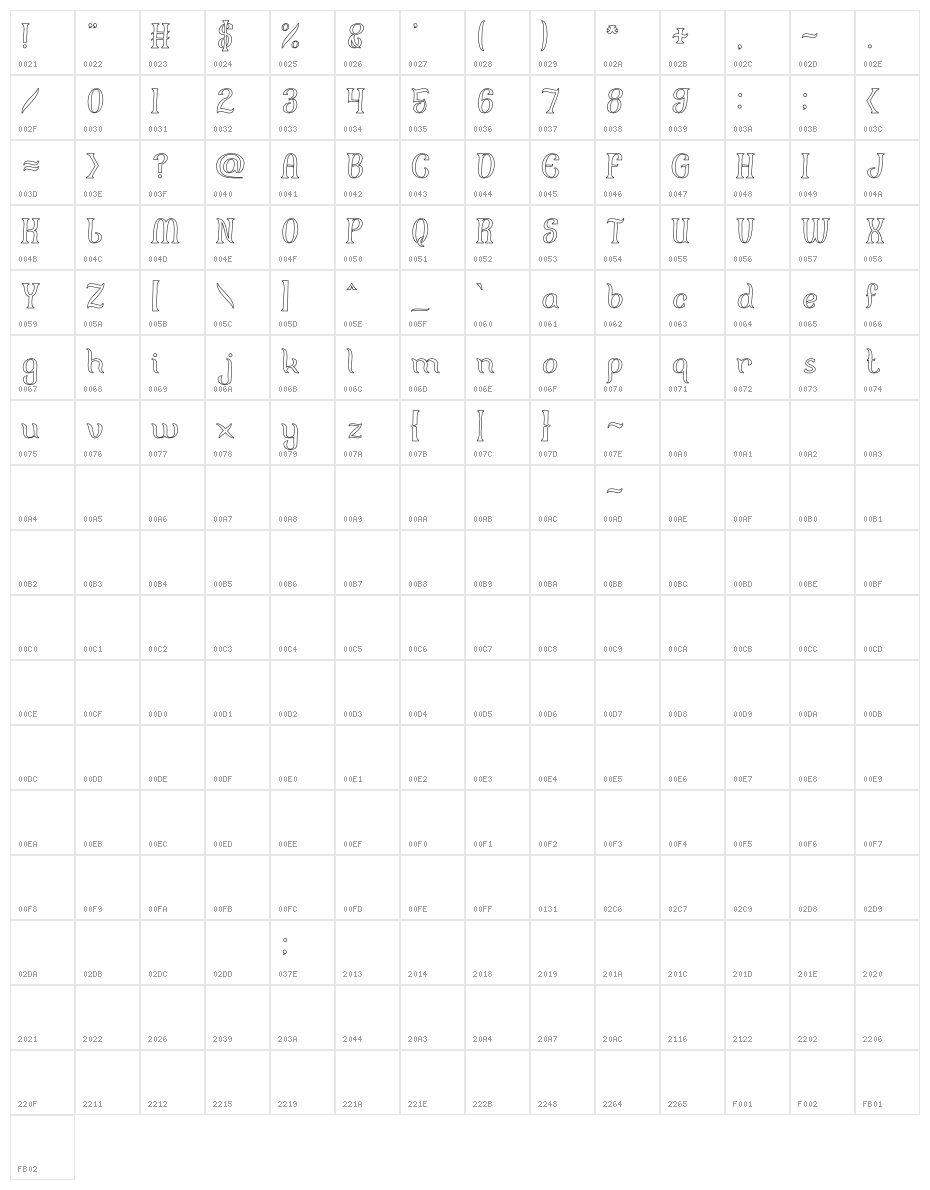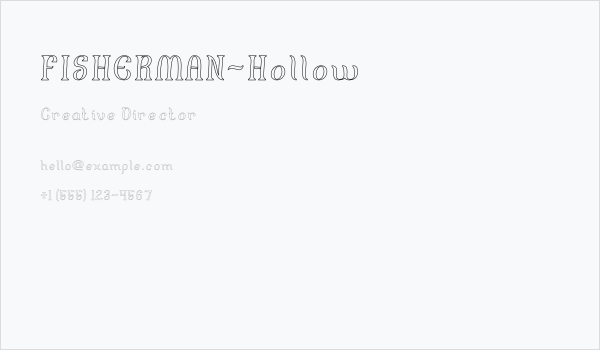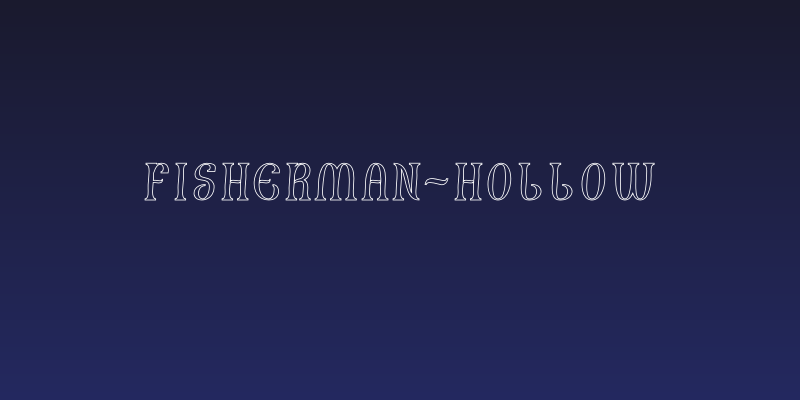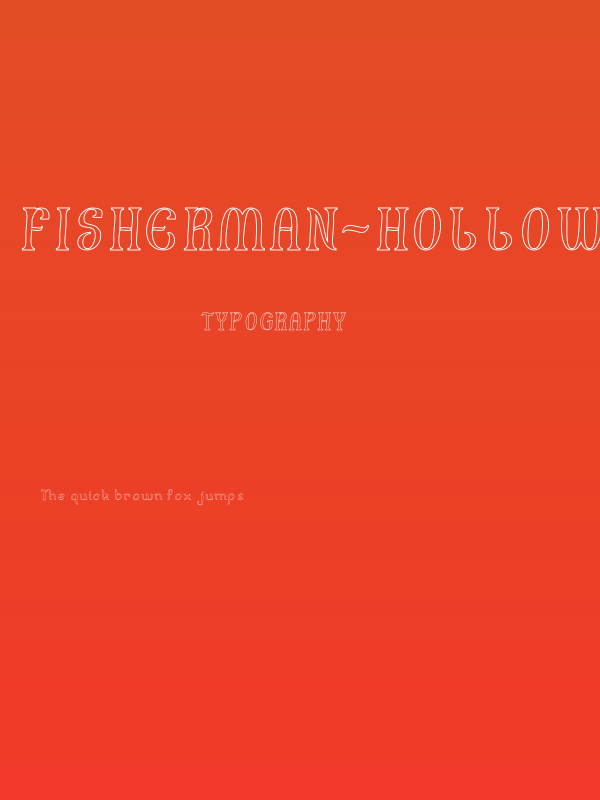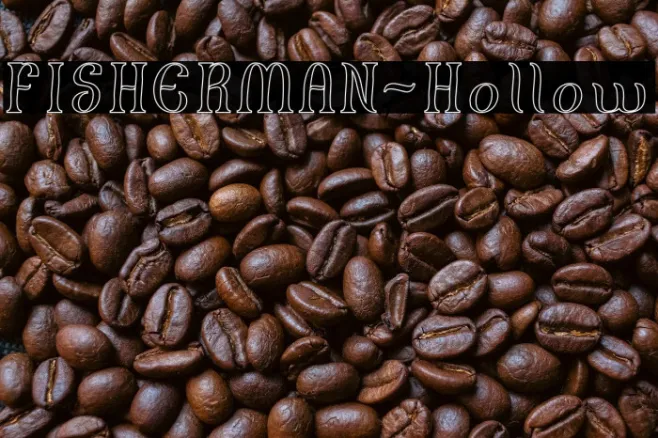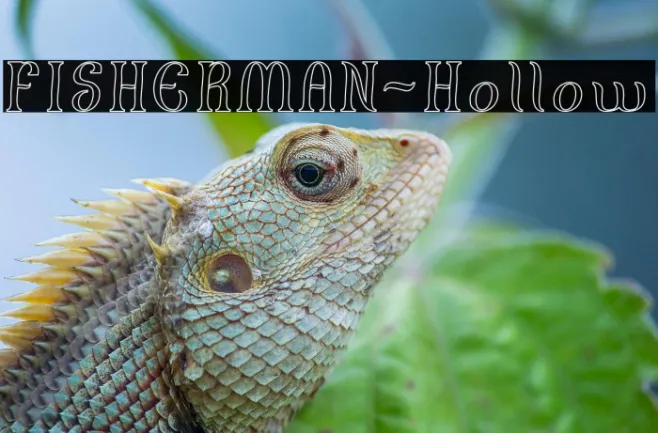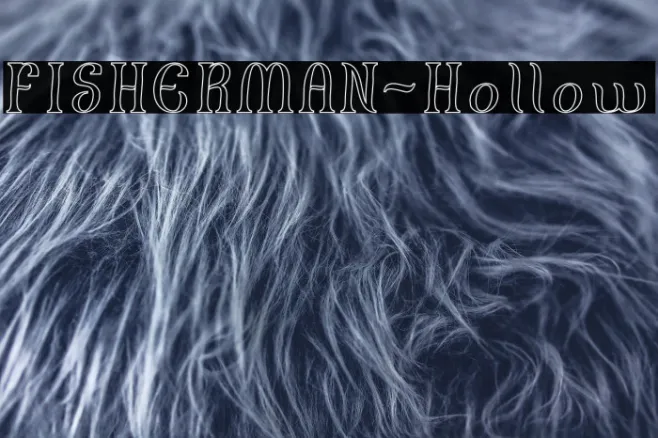
FISHERMAN-Hollow Font
FISHERMAN-Hollow Description
This font features a unique hollow design with a playful and artistic flair. The characters are outlined, giving them a light and airy appearance while maintaining a bold presence. The uppercase letters have a whimsical, slightly curved structure, while the lowercase letters are more fluid and organic. The numerals are consistent with the overall style, offering a cohesive look. Special characters are creatively integrated, enhancing the font's decorative appeal. This font is ideal for projects that require a touch of creativity and uniqueness.
| Proposed Projects | Ideal for creative projects such as posters, invitations, and branding materials that require a unique and artistic touch. |